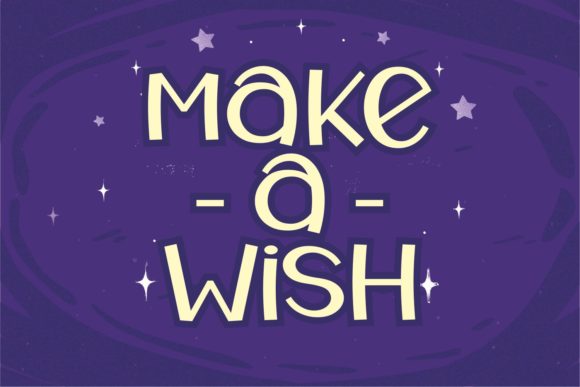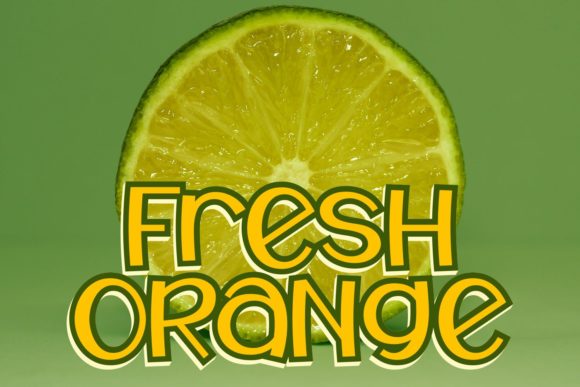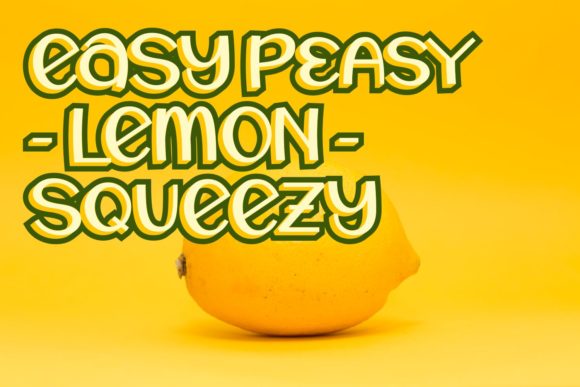
Elevate Your Designs with Forget The Mistake Font
Are you tired of using the same old fonts in your designs? Look no further than Forget The Mistake font, a wonderful display font that is sure to take your projects to the next level. With its fresh style and versatility, this font is perfect for a wide range of design applications, from branding and headings to wedding designs, invitations, signatures, logos, labels, and more.
What Makes Forget The Mistake Font So Special?
Forget The Mistake font is a unique and stylish display font that is designed to make your designs stand out. Its fresh and modern style is perfect for designers and crafters who want to add a touch of elegance and sophistication to their work. Whether you’re creating a logo, heading, or invitation, this font is sure to impress.
Key Features of Forget The Mistake Font
- Fresh and Modern Style: Forget The Mistake font features a fresh and modern style that is perfect for designers who want to stay on top of the latest trends.
- Versatility: This font is versatile and can be used for a wide range of design applications, from branding and headings to wedding designs, invitations, signatures, logos, labels, and more.
- Elegant and Sophisticated: Forget The Mistake font is designed to add a touch of elegance and sophistication to your designs, making it perfect for high-end branding and luxury designs.
- Easy to Read: Despite its elegant and sophisticated style, Forget The Mistake font is easy to read, making it perfect for use in headings, titles, and other design elements.
How to Use Forget The Mistake Font in Your Designs
Forget The Mistake font is easy to use and can be incorporated into your designs in a variety of ways. Here are a few ideas to get you started:
- Branding: Use Forget The Mistake font as a logo font or as a heading font to add a touch of elegance and sophistication to your brand.
- Wedding Designs: This font is perfect for wedding designs, including invitations, programs, and wedding stationery.
- Headings and Titles: Use Forget The Mistake font as a heading or title font to add a touch of elegance and sophistication to your designs.
- Signatures and Logos: This font is perfect for use in signatures and logos, adding a touch of professionalism and sophistication to your designs.
Why Choose Forget The Mistake Font?
There are many fonts to choose from, but Forget The Mistake font stands out from the rest. Here are a few reasons why:
- Unique Style: Forget The Mistake font features a unique and stylish design that is sure to make your designs stand out.
- High-Quality Design: This font is designed to the highest standards, ensuring that it looks great in any design application.
- Easy to Use: Forget The Mistake font is easy to use and can be incorporated into your designs in a variety of ways.
Forget The Mistake font is a wonderful display font that is sure to elevate your designs to the highest level. With its fresh style, versatility, and elegance, this font is perfect for a wide range of design applications. Whether you’re a designer or crafter, Forget The Mistake font is a great choice for anyone looking to add a touch of sophistication and elegance to their work.